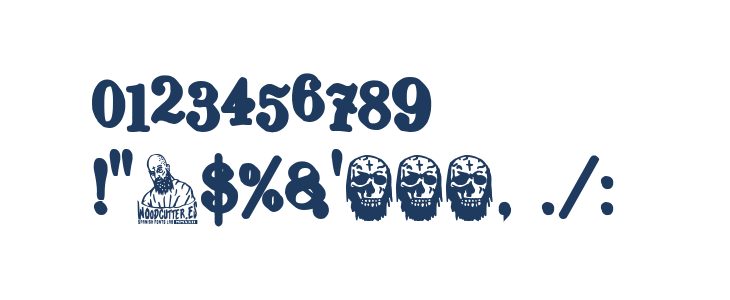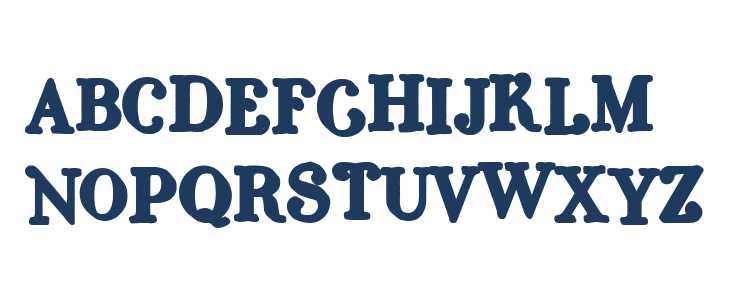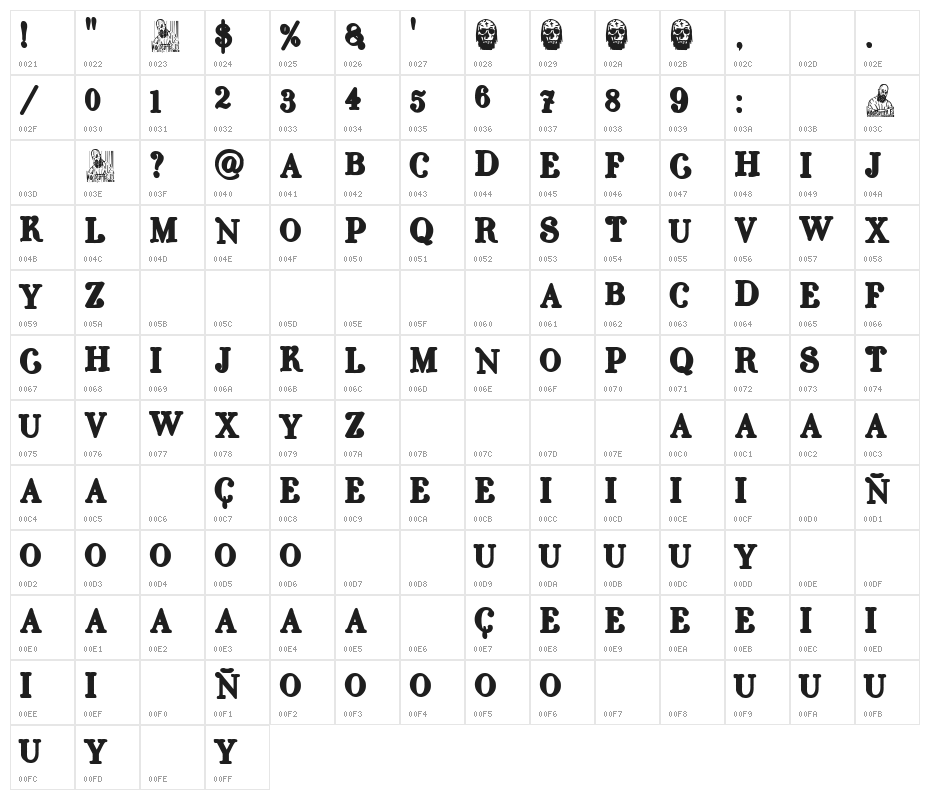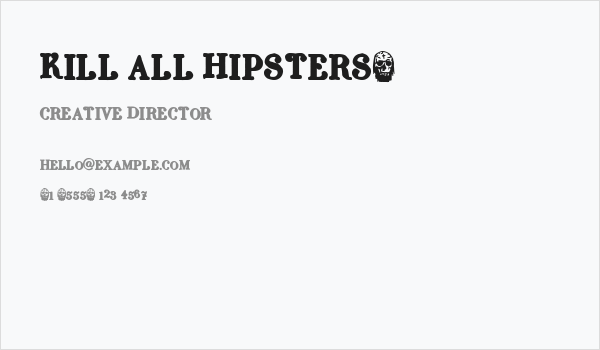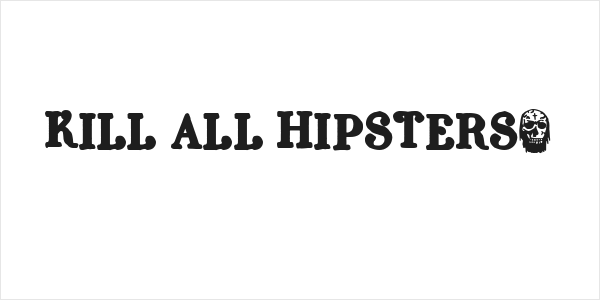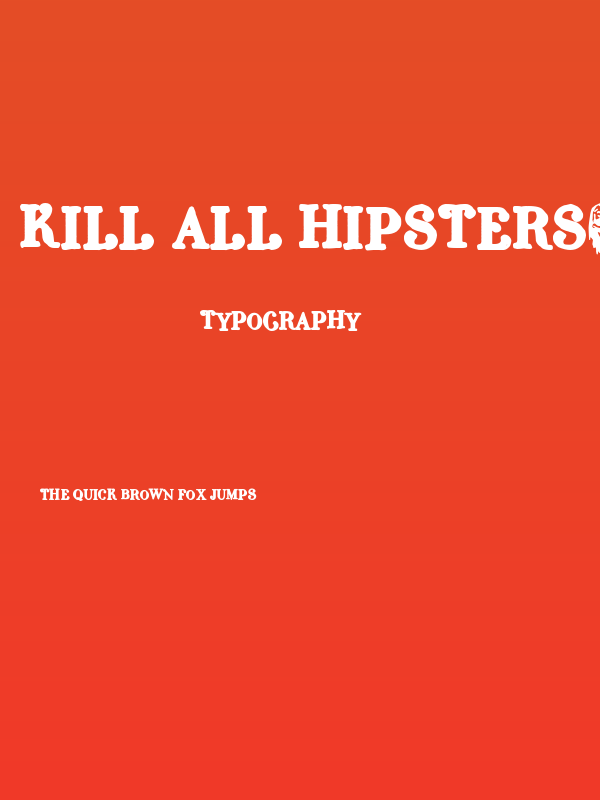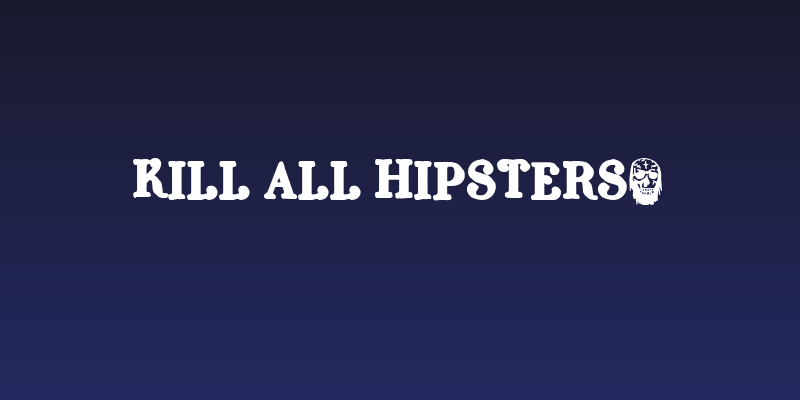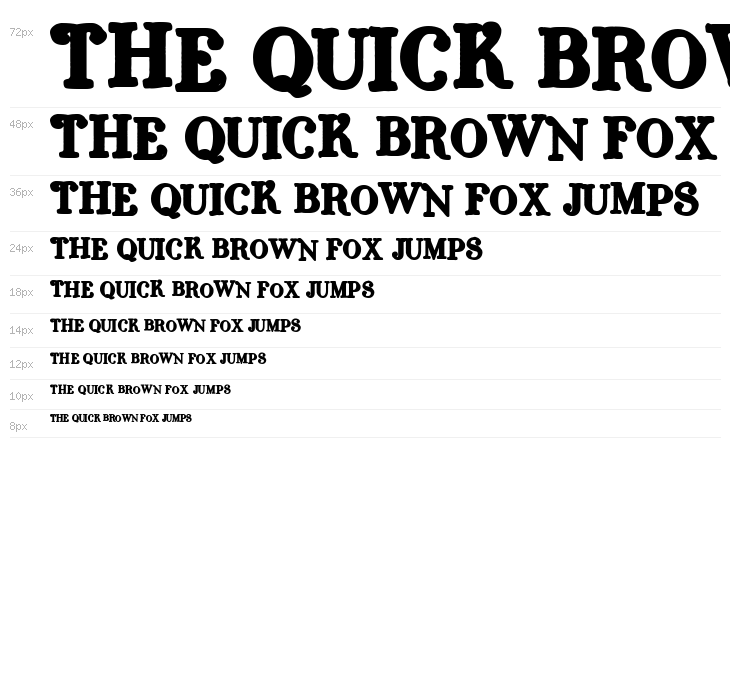
Kill all Hipsters+ Font
Kill all Hipsters+ Description
A bold, slab serif display font with thick, rounded serifs and playful, slightly irregular shapes, giving it a vintage and rebellious feel. The characters are wide with high contrast between thick and thin strokes, and the font includes unique decorative elements such as skull icons.
WidthExpanded
Overall StyleVintage, Decorative, Rebellious
Use CaseHeadlines, Logos, Posters, Decorative text
Proposed ProjectsPosters, music album covers, event flyers, branding for alternative or edgy products, Halloween or horror-themed designs.